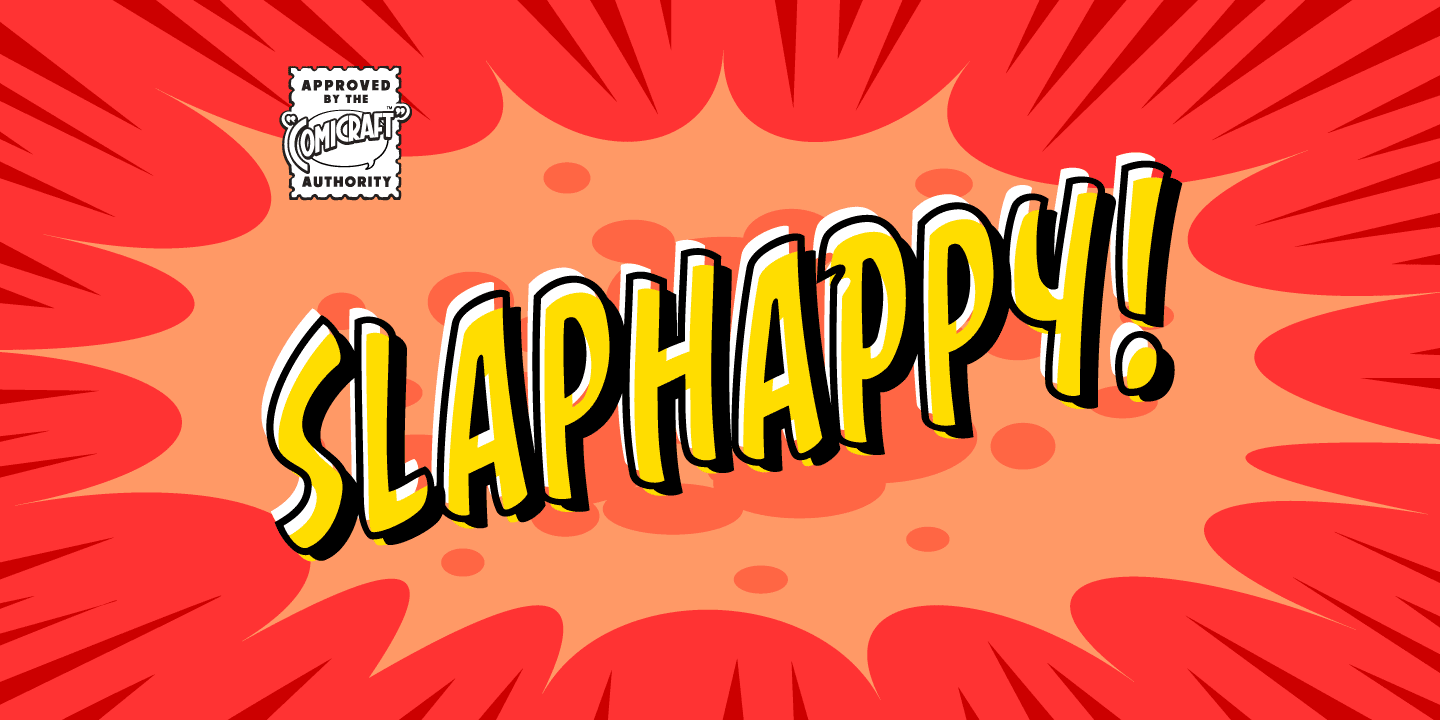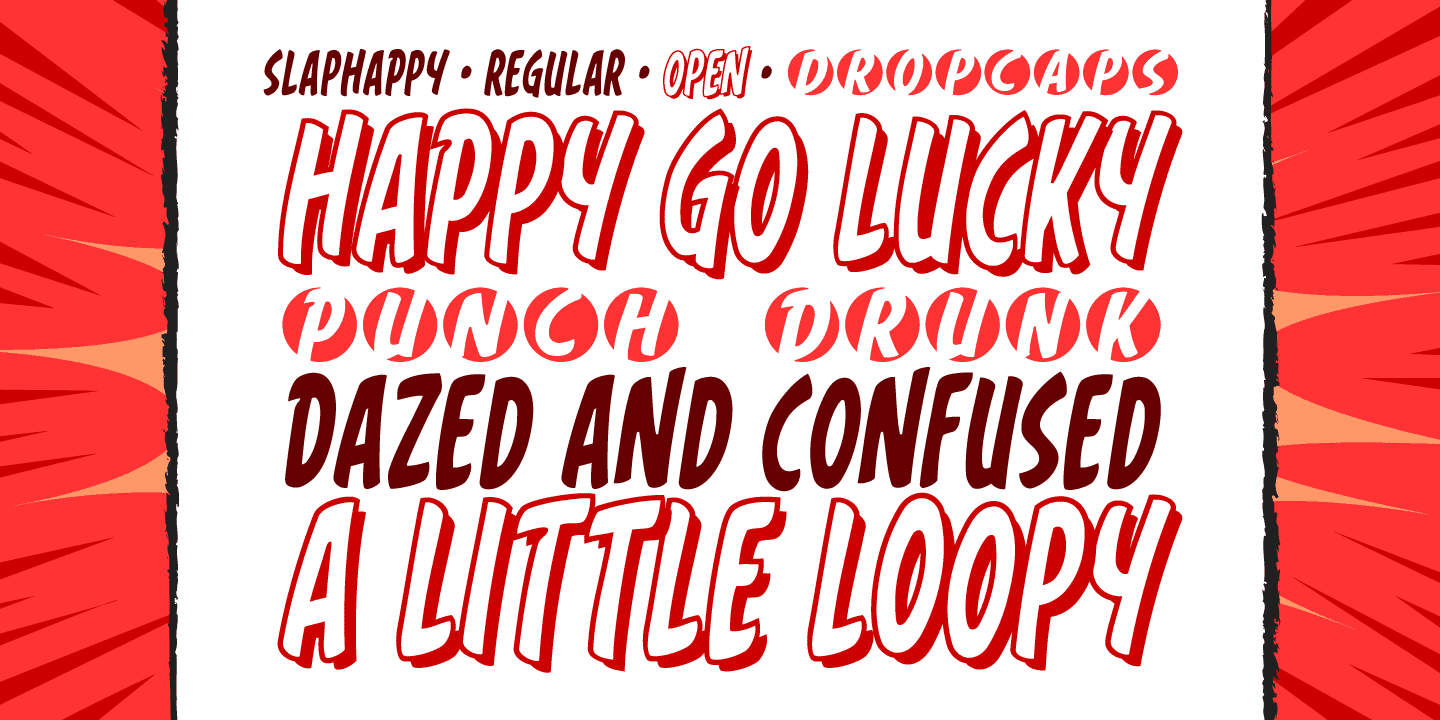
About the Slaphappy Font
About Slaphappy Font Family Are you feeling a little dazed, silly, or light-headed? Are you talking incoherently as if you’ve received repeated blows to the head? Would you perhaps describe yourself as punch-drunk? Happy-go-lucky?
Have you recently been sleep deprived or are experiencing excessive feelings of fatigue or tiredness? Have you become prone to inane semi-maniacal rambling? Have you been making strange and/or meaningless remarks?
Are you demonstrating fits of random and inexplicable behavior? Did you just give yourself a wedgie? Experiencing bouts of uncontrollable laughter — at your own jokes? Standing on a silver surfboard holding a hot dog and wondering why?! You’re off your rocker, dude; Slaphappy! Designers: John RoshellPublisher: ComicraftFoundry: ComicraftDesign Owner: ComicraftMyFonts debut: Feb 21, 2009 Slaphappy